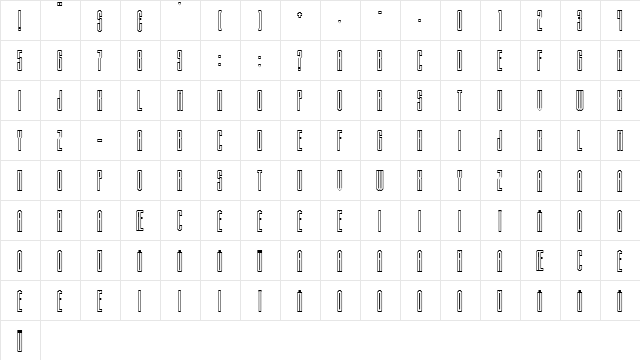
Building State Empire Hollow Regular
Design Context for Building State Empire Hollow Typeface
Building State Empire Hollow is a composed and adaptable typeface that performs quietly and consistently across a wide range of design contexts.
Pro Tip: Use Building State Empire Hollow in both headline and body roles to test its range before committing to a single application.